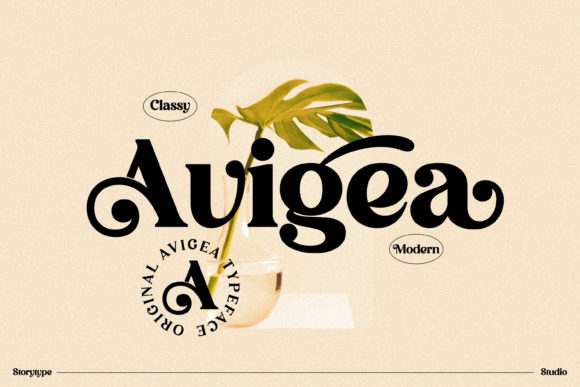
Unveil the majestic Avigea font, a serif masterpiece that will elevate your design creations to new heights. Crafted by the renowned Storytype Studio, Avigea exudes elegance and distinction, leaving an unforgettable impact on your audience.
With its meticulously designed curves and sharp terminals, Avigea possesses an innate ability to add a luxurious touch to any project, whether it's a captivating poster, an alluring invitation, or a sophisticated logo. Its versatility knows no bounds, making it the perfect choice for designers, crafters, and artists looking to make a statement.
But Avigea is more than just aesthetically pleasing; it's also incredibly user-friendly. PUA encoded, this font grants you effortless access to an array of stunning glyphs and ligatures, allowing you to unleash your creativity and add intricate details to your designs.
So, embark on a typographic journey with Avigea and transform your creative visions into captivating realities. Indulge in the beauty of meticulously crafted letters, embrace the limitless possibilities it offers, and elevate your designs to unprecedented levels of elegance and sophistication.